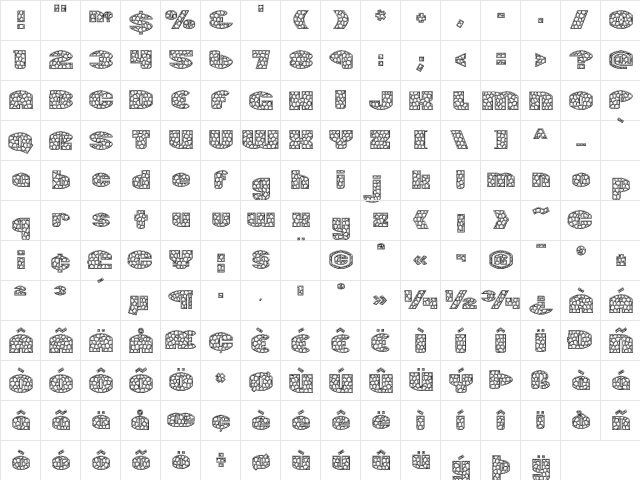
Bartholomeow 'StainedGlass' Regular
Design Context for Bartholomeow 'StainedGlass' Typeface
Bartholomeow 'StainedGlass' is a composed and adaptable typeface that performs quietly and consistently across a wide range of design contexts.